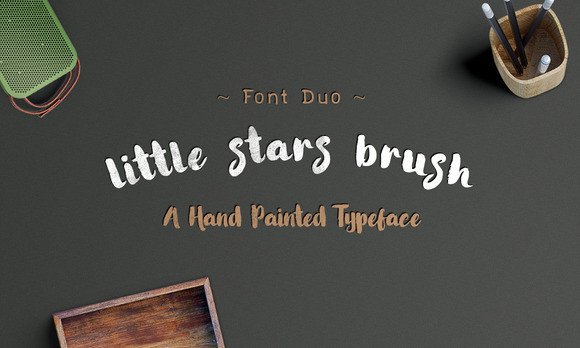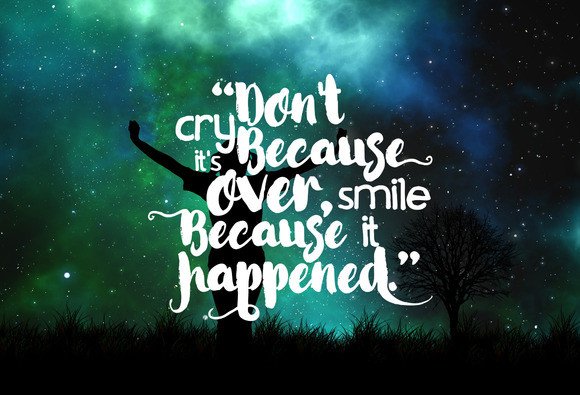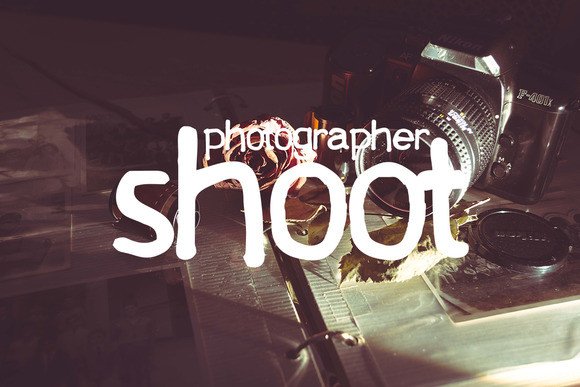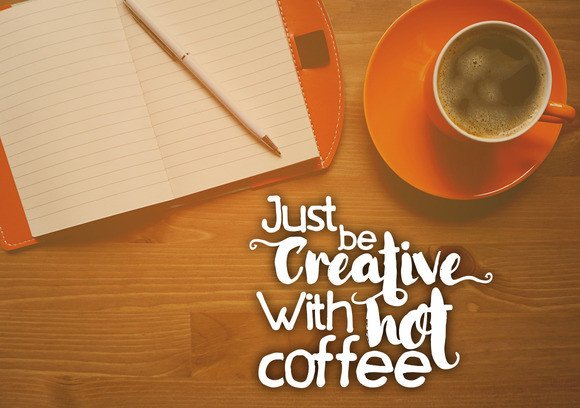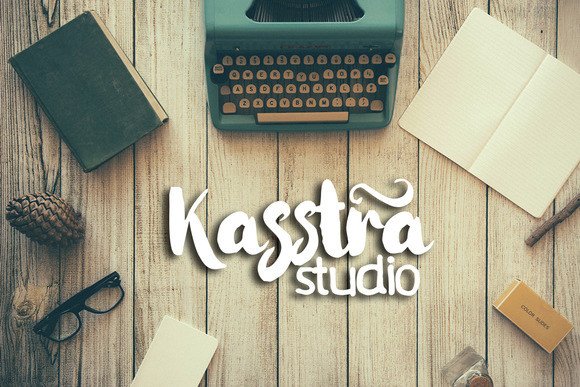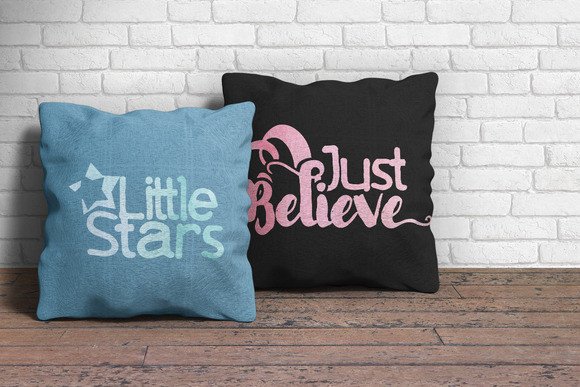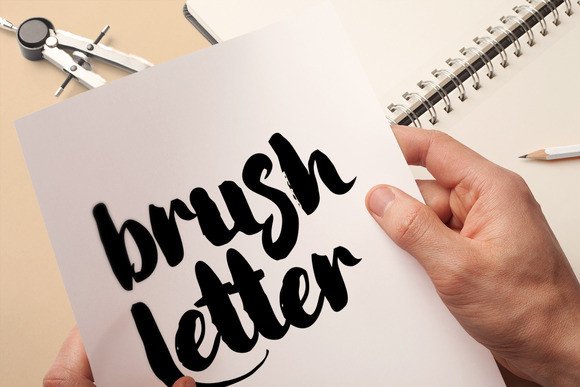
About Little Stars Brush Font
Little Stars Brush is an adorable font, with the appeal of cursive handwriting. This painterly brush stroke font is ideal for both children’s themes and friendly branded content.